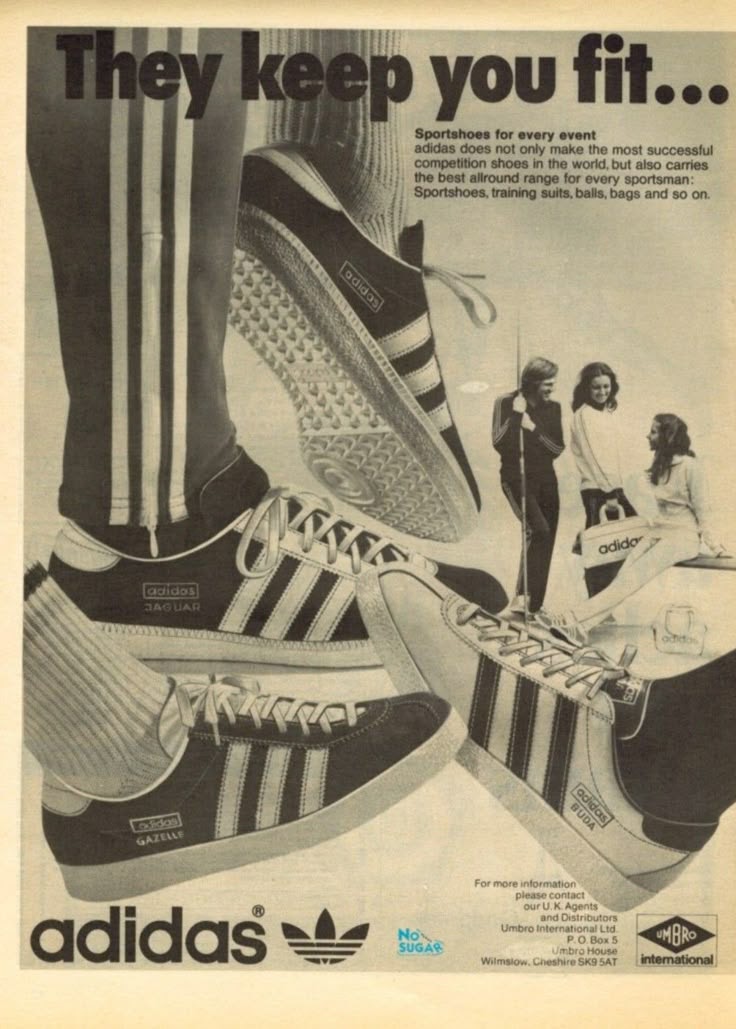
Retro fonts can be used when it is necessary to reconstruct the atmosphere of the past days in some kind of designing project, whether it is a book, a newspaper, or a. Adidas font is the retro typeface that is available here in the ttf file format and mostly used in different designs of illustrator.
Itc avant garde suggested by jdanielcundiff adineue suggested by pilaster adidas tipografías suggested by olaechea texgyreadventor suggested by. Retro style fonts are outdated or aged style fonts that imply a vintage of at least 15 or 20 years. A typically 70s curvy font with rounded points, created by fontalicious.
Groovy script is a bold sporty font that draws inspiration by the retro typography designs of the late 1960’s and 70’s. Edited on may 16, 2013 at 19:30 by oneskill. This font got inspired by the famous retro typography design from the late 60’s and 70’s.
With its brand coverage, now, adidas is a leading brand that providing high quality sports products for […] It’s thick curves give a 70s groovy vibe with the serifs bringing it slightly back to traditional. It is a free font.
This old retro and vintage 70’s font can be used for headline content, logo, branding, posters, wallpapers and also in fashion. 1001 free fonts offers the best selection of retro fonts for windows and macintosh. Margin fits perfectly into those nostalgic moodboards and vintage logos.
1001 free fonts offers the best selection of retro fonts for windows and macintosh. Adidas is a brand in the fashion design and manufacturing industry that was founded in 1924 in herzogenaurach, germany. هيأ في شرف غابة الأمازون football teams shirt and kits fan:
The font comes bundled with regular and extrude font files so you can easily create retro extrude effect as seen in the above image. This font was inspired by the 1968 mexico olympics (image credit: Edited on may 16, 2013 at 19:30 by oneskill.
Margin is a stylish font that is both retro and bold font. Groovy is one of amazing 70s fonts which is created based on hand lettering project in 2017. Adidas is german company that designs and manufactures shoes, clothing and accessories and is the largest sportswear manufacturer in the world after nike.
It come with a unique lower and uppercase plus numbers, punctuation & multilingual. Download more than 10,000 free fonts hassle free, desktop and mobile optimized, around for more than 20 years. This 1970s font has a high contrast didone style, typical of that time.
You might also want to check out our lists of the best free 80s fonts and vector packs. Adidas font is a particularly sans serif font that is mentioned as associated with the world’s cult fashion brand. Raymond larabie on 1001 fonts) format:
70s fonts take you back to the iconic decade of the 70s. Dig this groovy, 1970s font, far out! Please consider disabling it to see content from our partners.